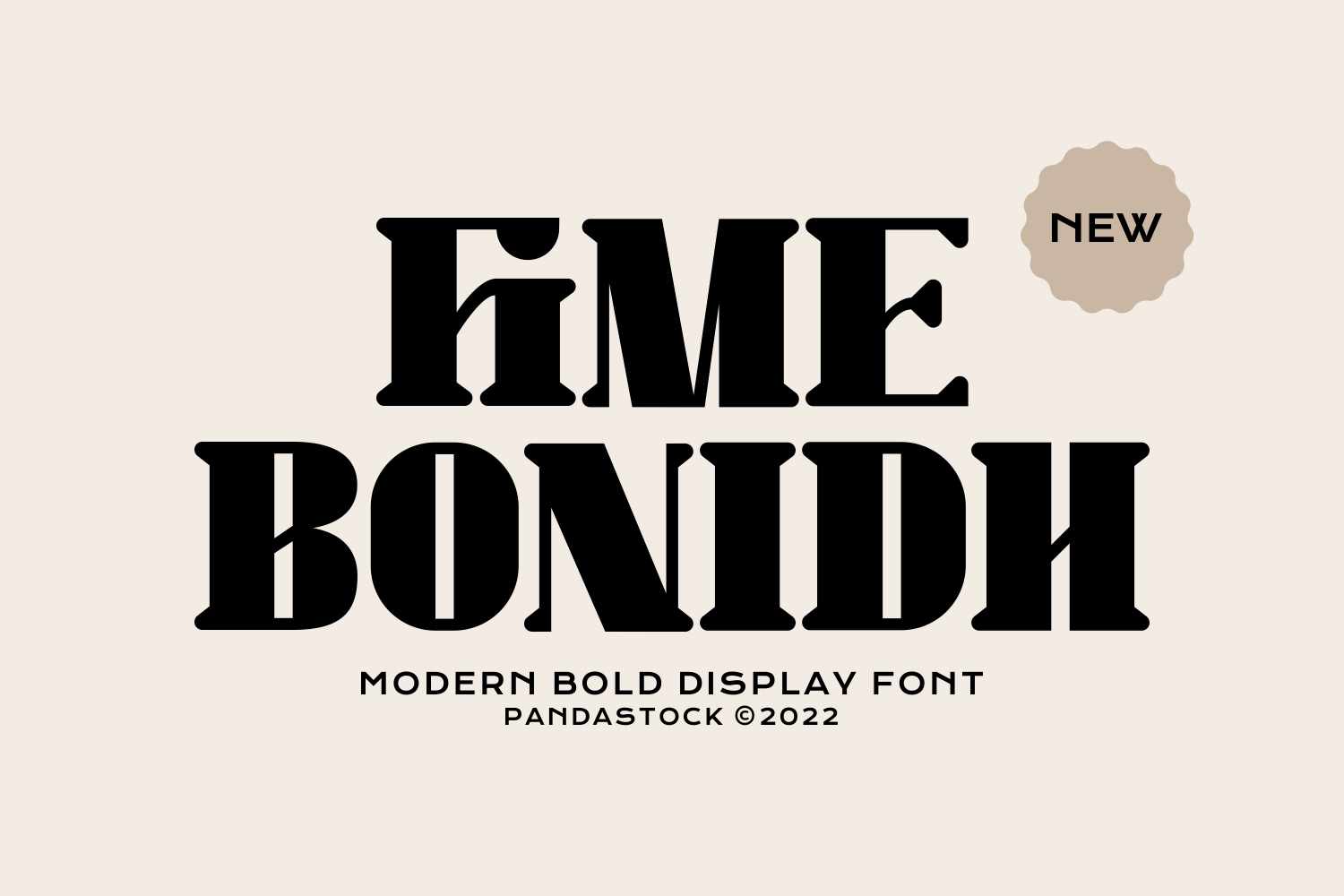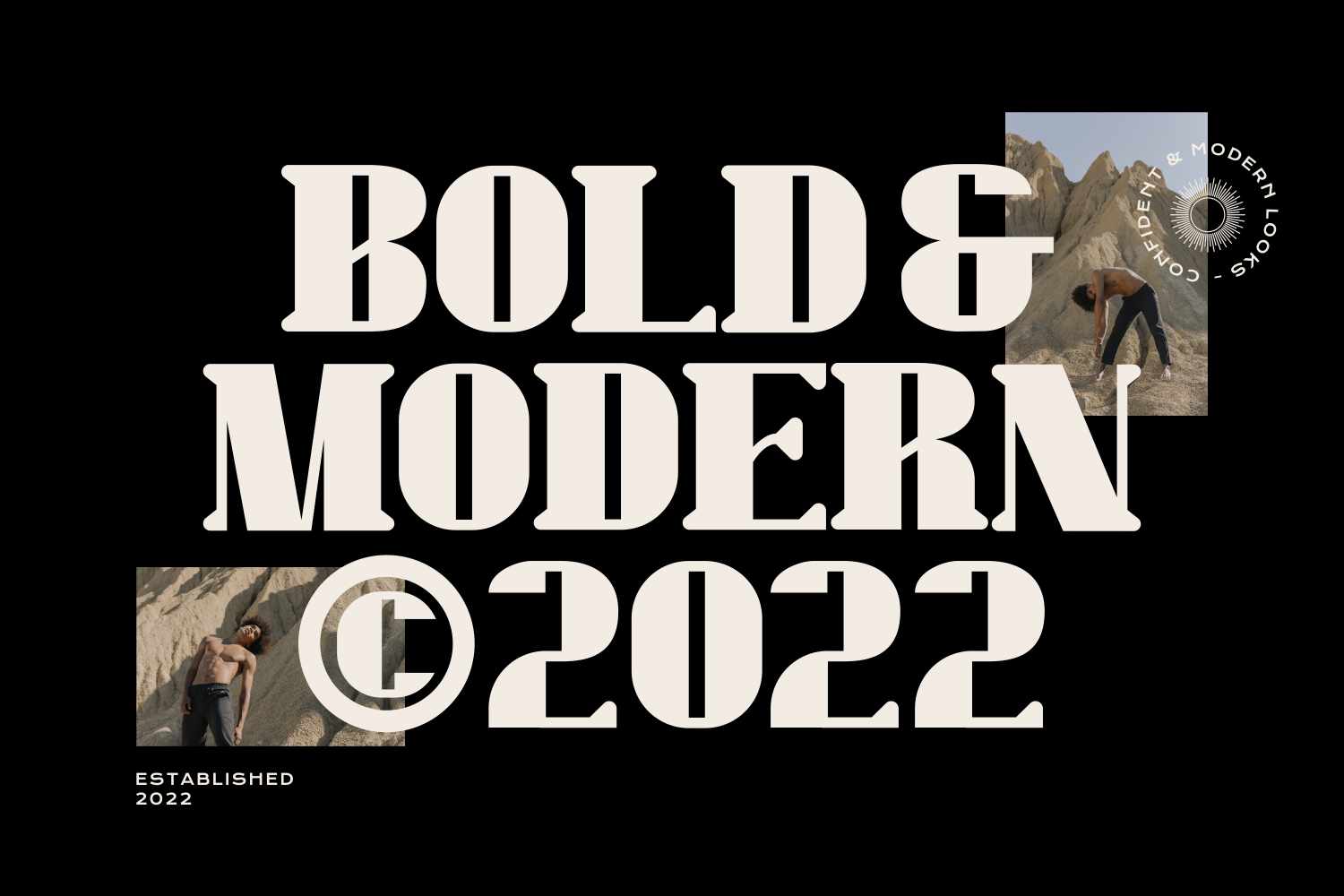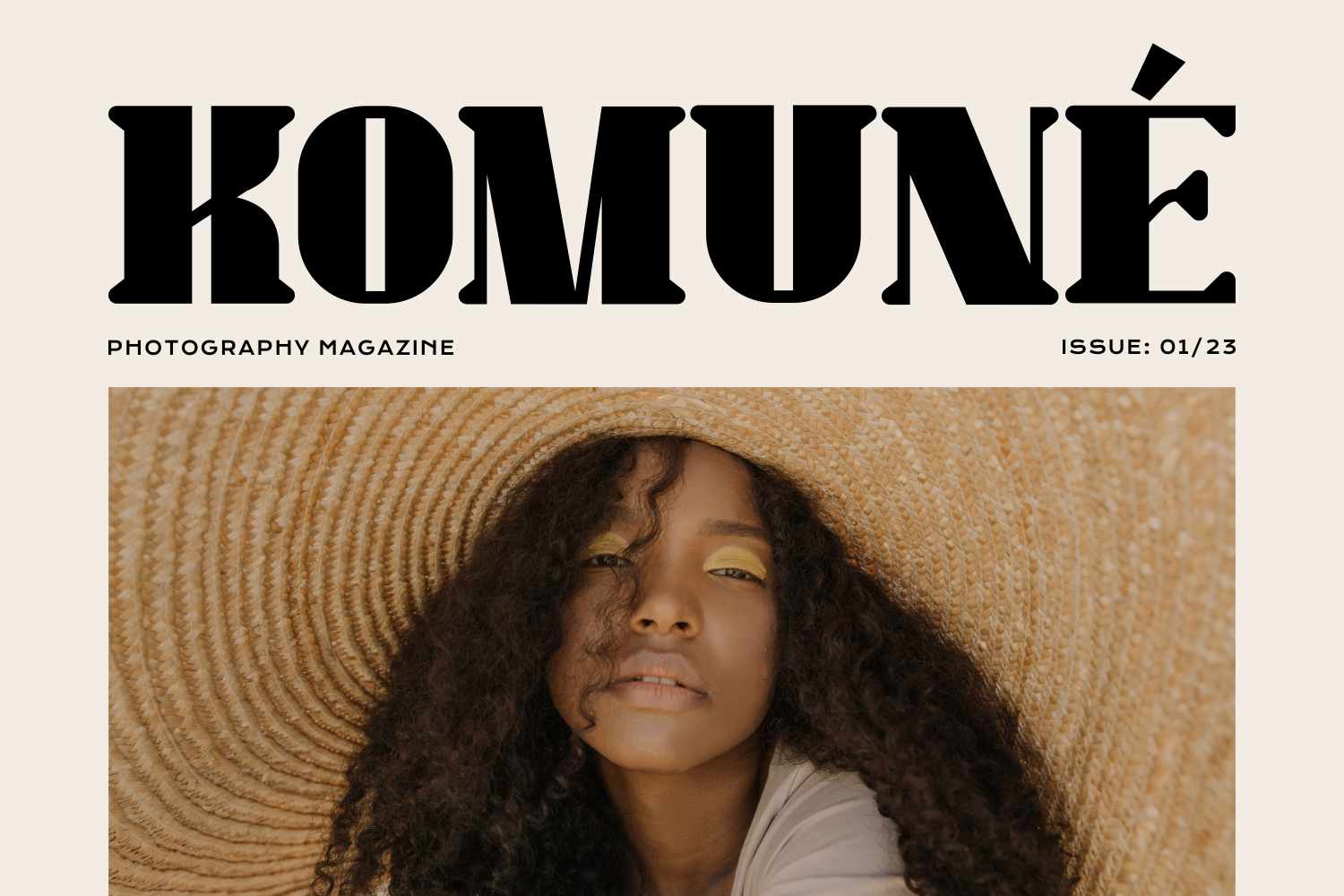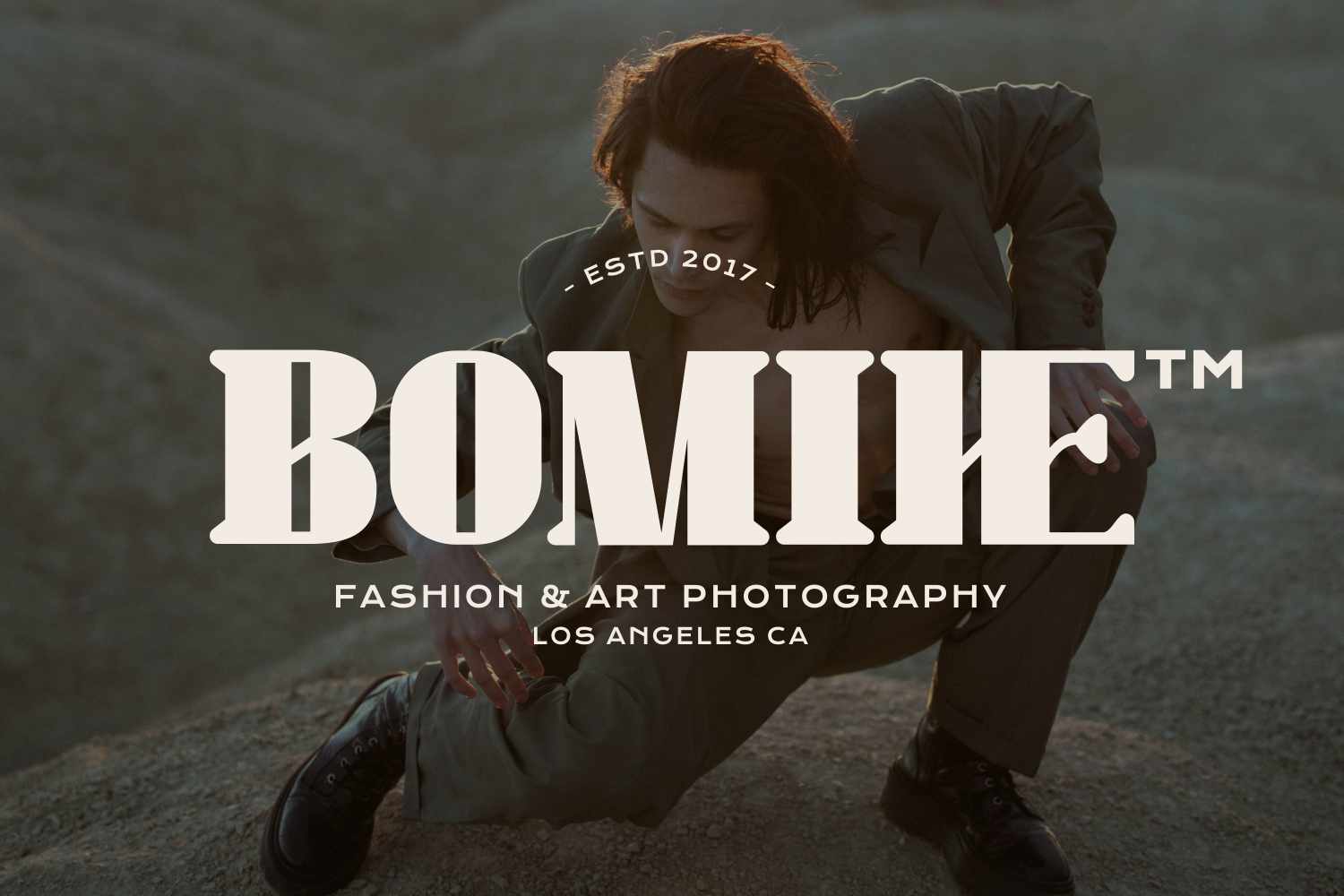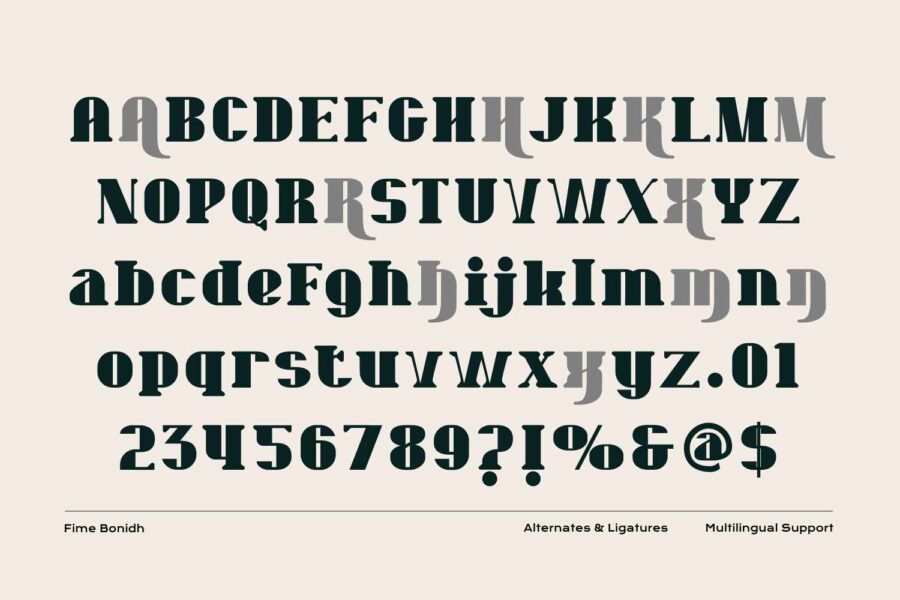
Fime Bonidh
Fime Bonidh is a modern bold display font designed to make a striking impact. With its strong geometric structure, thick strokes, and sharp cuts, it creates a confident and contemporary feel. The unique character alternates and ligatures add versatility, making it ideal for projects that require both strength and style.
Perfect for magazine covers, fashion branding, posters, headlines, and editorial layouts, Fime Bonidh elevates any design with a bold statement. Its modern yet timeless appeal makes it suitable for both print and digital use, giving your work a professional and eye-catching edge.